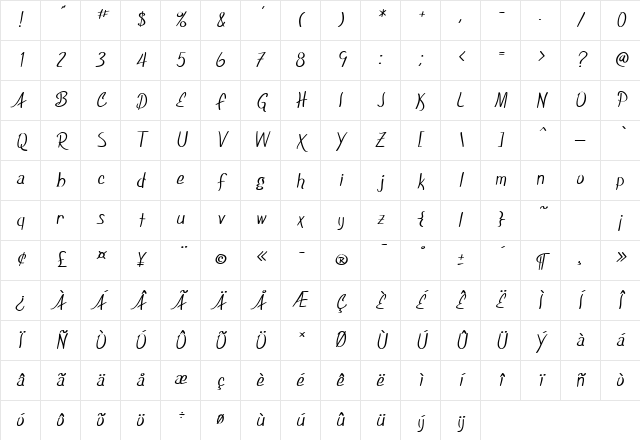
SF Foxboro Script Regular Free Font
SF Foxboro Script Regular
SF Foxboro Script Family
Design Context for SF Foxboro Script
SF Foxboro Script flows with the natural rhythm of handwritten lettering, making it ideal for designs that call for warmth and personal expression.
Font Pairing: Combine SF Foxboro Script with a simple geometric sans for maximum contrast - the tension between flowing curves and clean structure is a classic typographic pairing.
Pro Tip: Use SF Foxboro Script for short runs of text - names, titles, or taglines. Extended body copy in script faces tires the eye quickly.